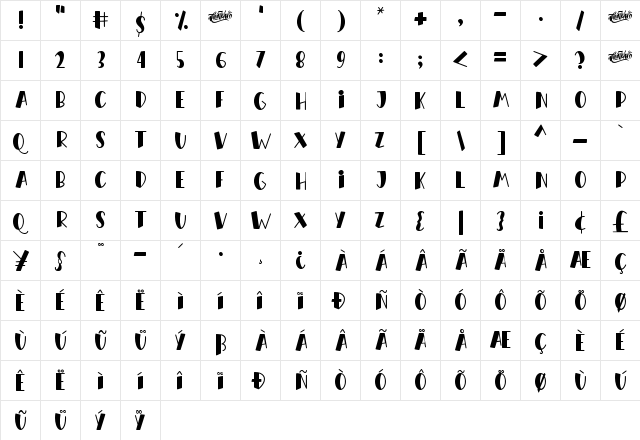
Orange Milk Regular
| Foundry | Almarkhatype |
| Designer | Almarkhatype 2020 - Abdul Malik Wisnu |
Design Context for Orange Milk Typeface
Orange Milk is a composed and adaptable typeface that performs quietly and consistently across a wide range of design contexts.